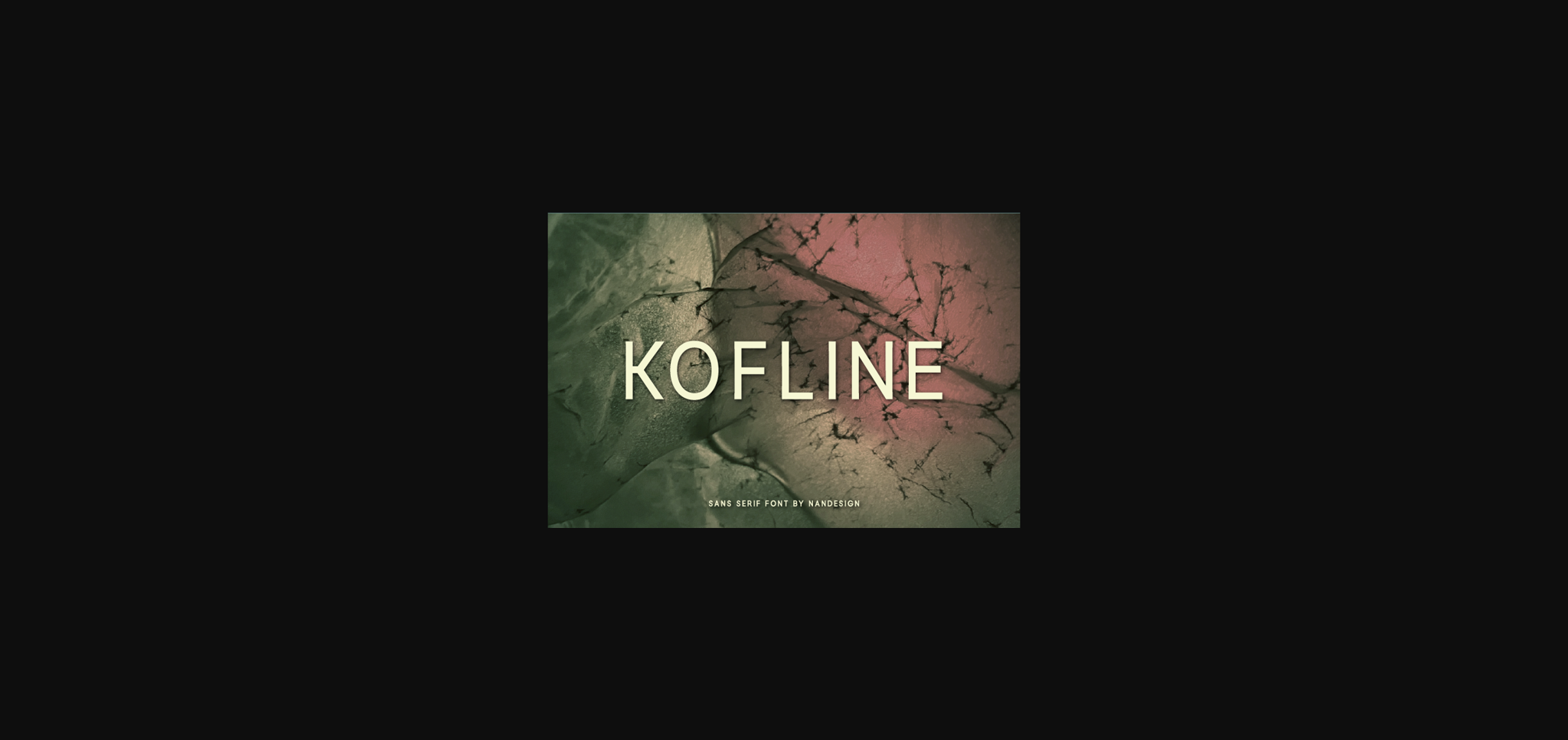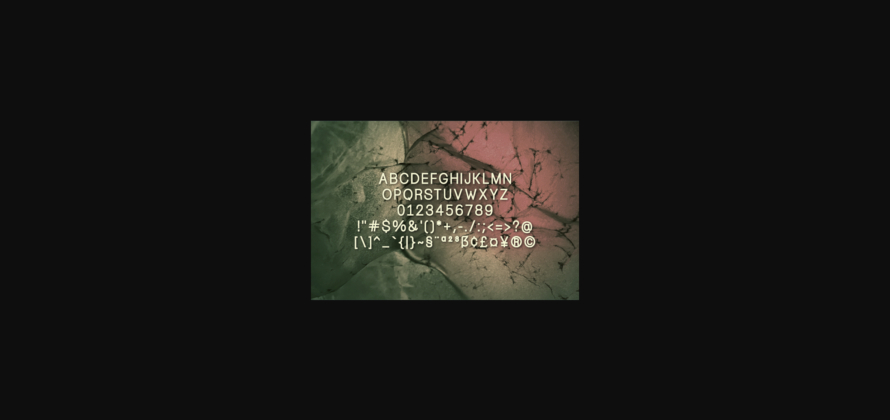
About Kofline Font
Kofline is a tall and simple sans serif font, designed to complement every project you’re developing. It has a clean, thin and fine vibe and it will be a hit for any design that you want to add it to.